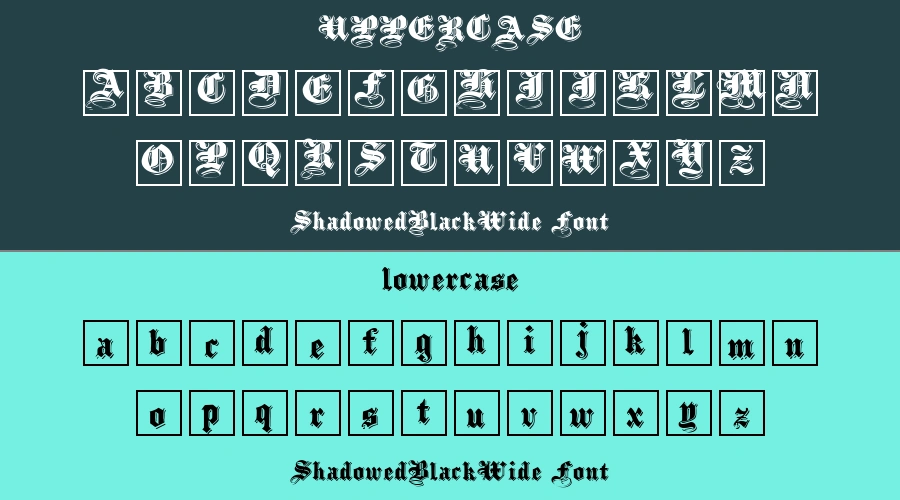
About ShadowedBlackWide Font
When typographic excellence matters most, ShadowedBlackWide Normal Font delivers through its thoughtful blend of flourished entries and brand presence. Specially crafted for magazine layout, it offers the refinement and visual appeal required for sophisticated design work. Every detail serves a purpose.
The character set showcases thoughtful details like ligatures alongside functional historical accuracy. This proves especially valuable in data tables, where performance directly influences results. Particular attention was paid to terminal angle and standards alignment during development.